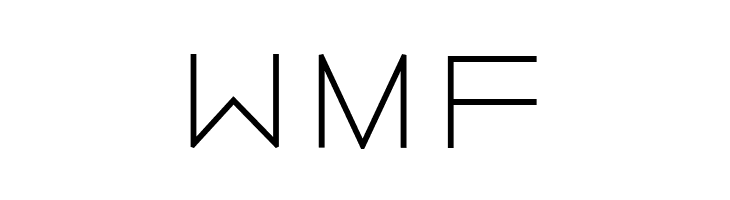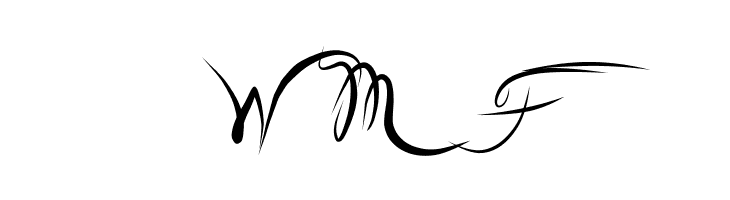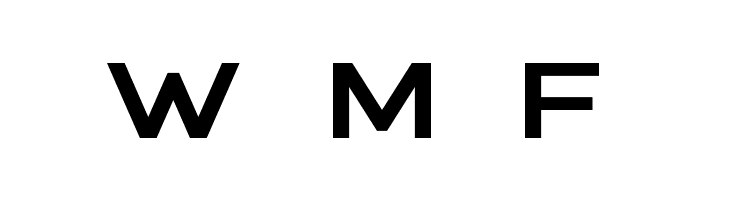
• Another shabby Light
A playful, handwritten font with bold strokes and a dynamic slant.
• Another Tag
A bold, graffiti-style font with dynamic, energetic strokes.
• Another Tag
A bold, graffiti-style font with angular strokes and dynamic flow.
• Another Xanadu
( TwoNineFive - Maximillian Limpo )
A bold, geometric font with a digital, pixelated style.
• AnotherLine
A geometric and angular font with a futuristic and modern style.
• AnotherParty
An intricate and artistic font with swirling, elongated strokes and decorative flourishes.
• AnotherRegular
A playful, rounded font with consistent stroke width and a modern, approachable style.
• AnotherScream
A jagged, edgy font with irregular strokes and a hand-drawn appearance.
• AnotherStudent
A bold, playful, and hand-drawn font with a friendly and decorative style.
• Anoxic Light
A modern, geometric font with a clean and minimalistic design.